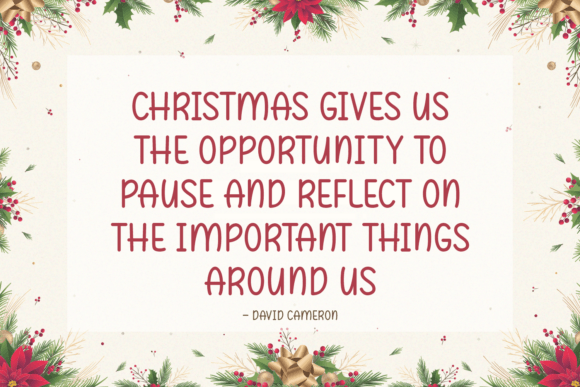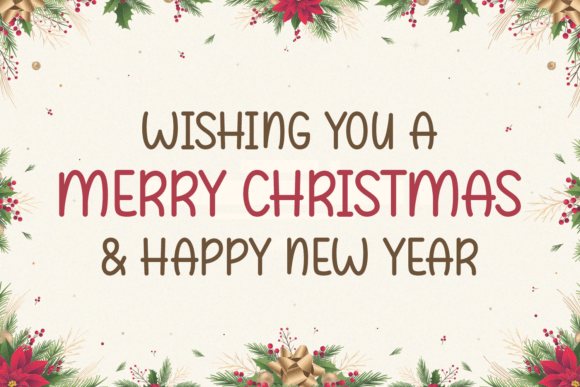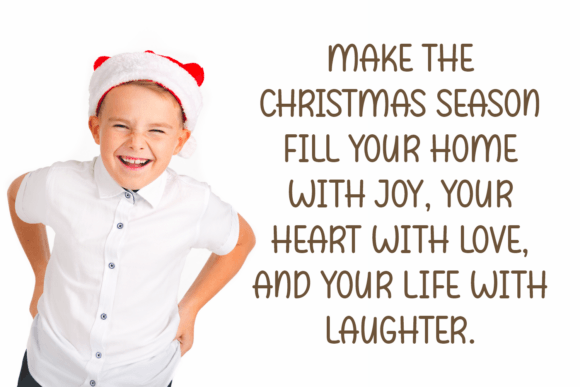
Introduction to Christmas Everybody Font
Introducing Christmas Everybody.
Get into the holiday spirit with this handwritten font that effortlessly encapsulates the joy and magic of Christmas Perfect for dashing out a merry โSanta Clausโ or seasonโs greeting, its trendy and minimalist style makes it a crowd-pleaser.
Christmas Everybody Font offers exceptional quality and versatility, making it a valuable addition to your design toolkit. Whether you’re creating for personal projects or commercial use, Christmas Everybody Font delivers professional results.